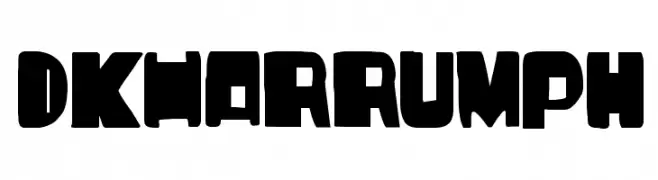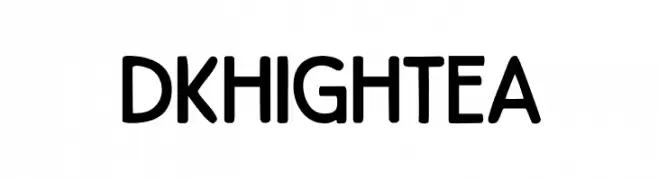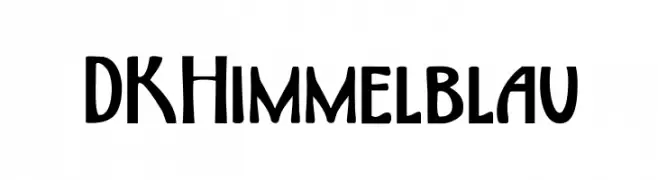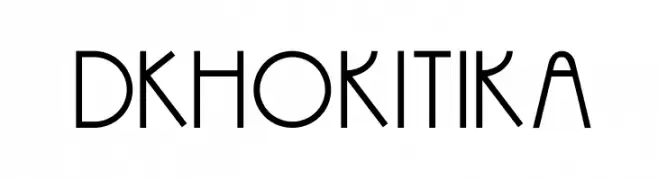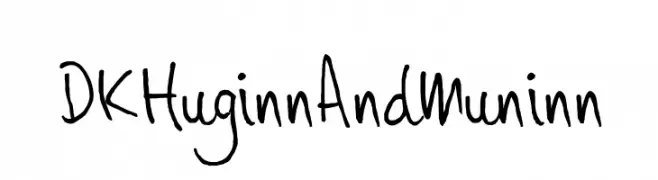
A bold, playful font with thick, blocky, and whimsical characters.
A playful, handwritten font with fluid, dynamic strokes and a casual feel.
A playful, rounded font with a bold and friendly appearance.
A bold, playful font with a hand-drawn, whimsical style.
A playful, casual handwritten font with irregular strokes and a lively appearance.